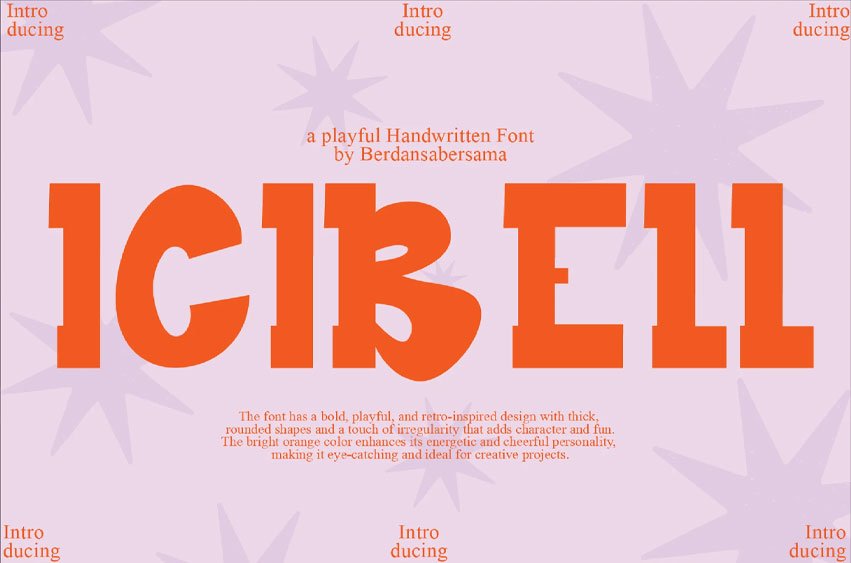
Icibell Font is a playful and charming font that radiates a sense of fun and lightheartedness. With its rounded edges and whimsical design, Icibell is perfect for adding a cheerful, friendly touch to any project.
Whether used for children’s books, branding, invitations, or casual designs, Icibell brings a sweet, joyful energy to your text, making it an ideal choice for anything that needs a little extra sparkle and personality.